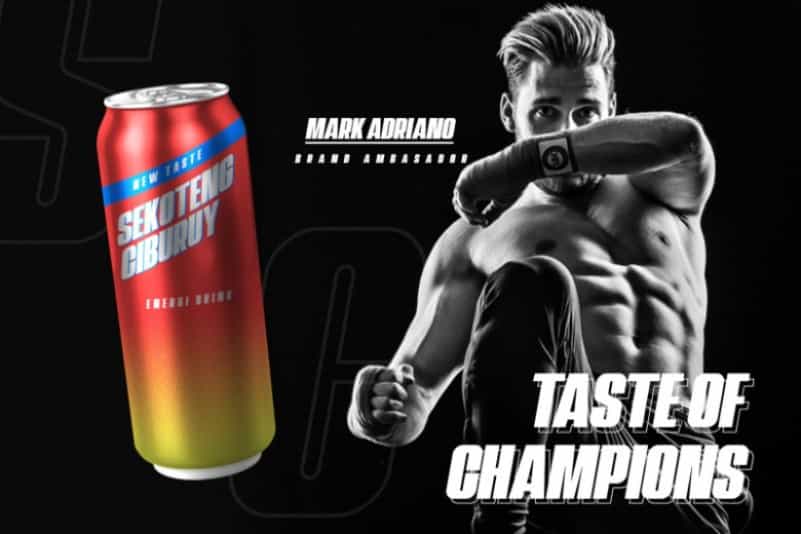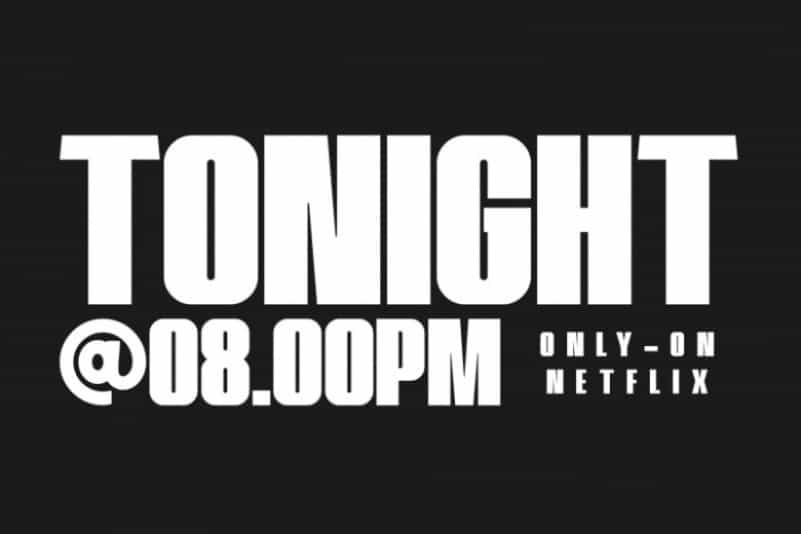
Navada is a luxurious and elegant display font. That is a combination of classic and modern. It is a perfect blend of class, intelligence and timelessness. Navada Font is our newest set of fonts, we made it with 6 styles which are very suitable for your design needs.